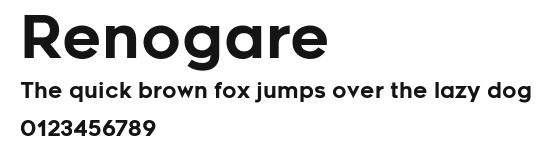
Renogare Preview
• Font Name: Renogare
• Full Font Name: Renogare-Regular
• Designer: Deepak Singh Dogra
About Renogare.ttf
Renogare.ttf is a modern, elegant sans-serif font designed for ultimate readability and visual harmony. Perfect for branding, headlines, web design, and print materials.